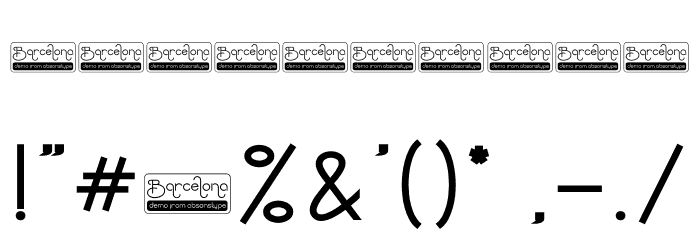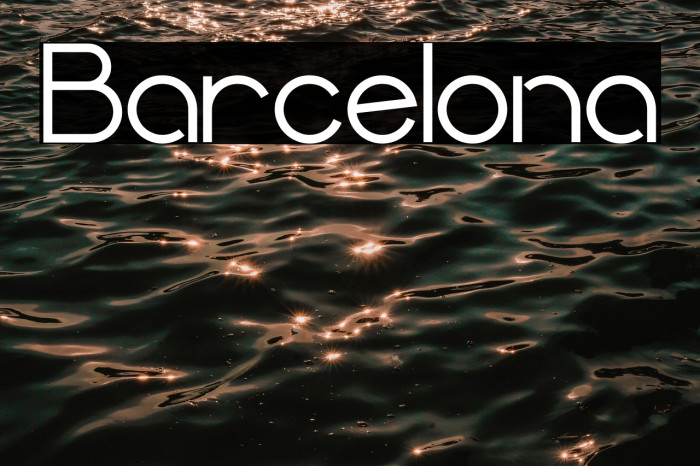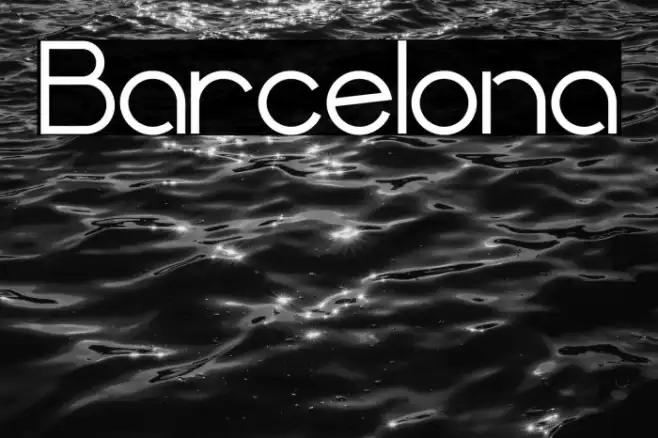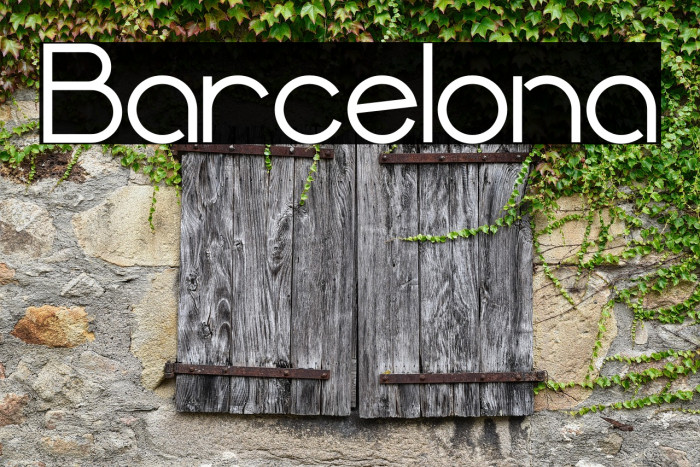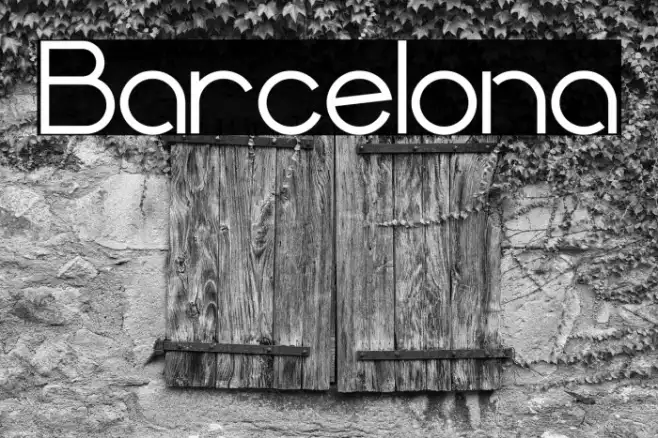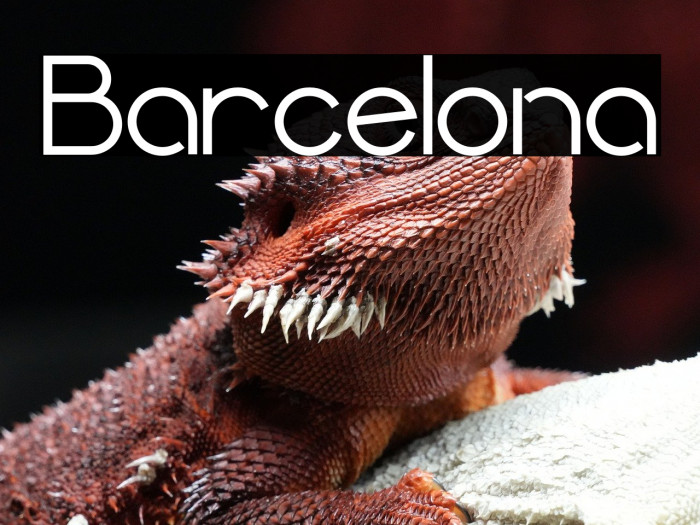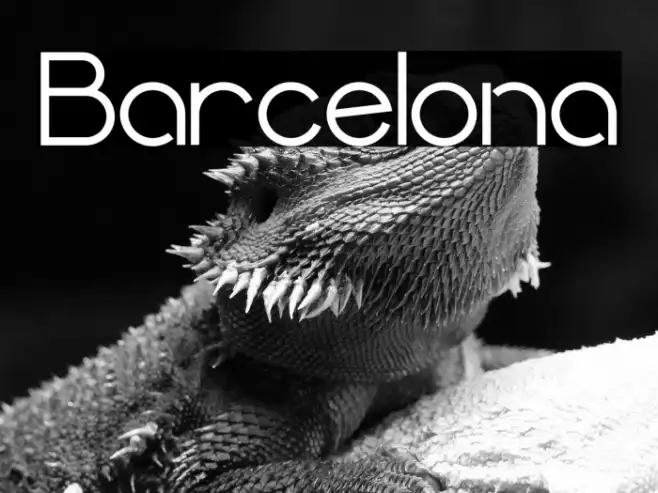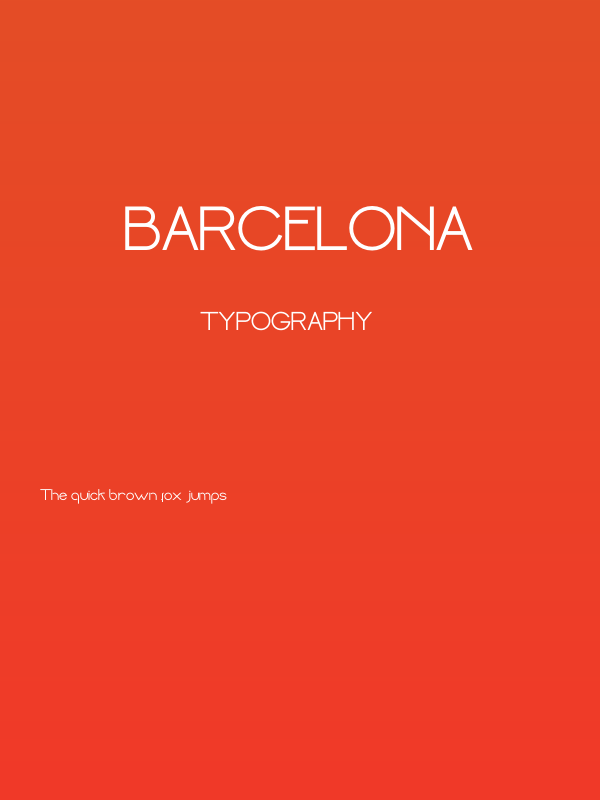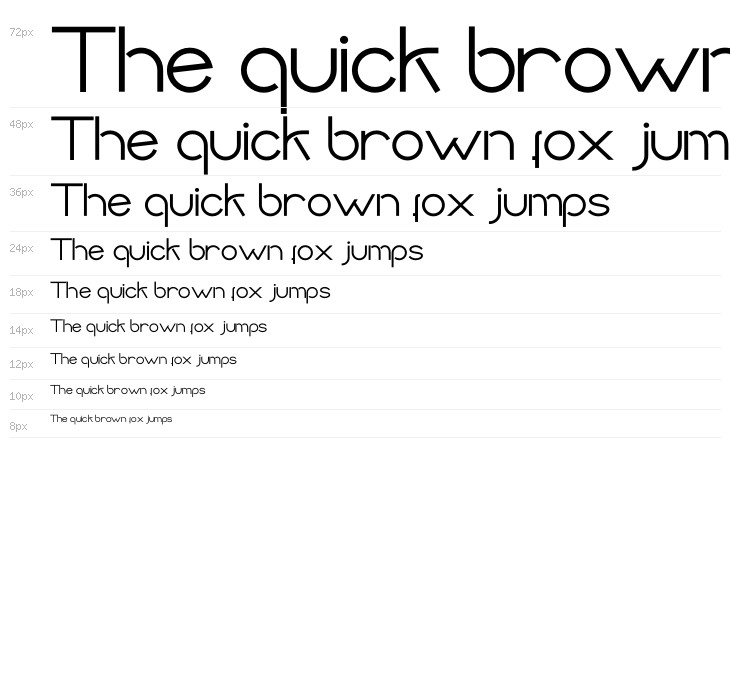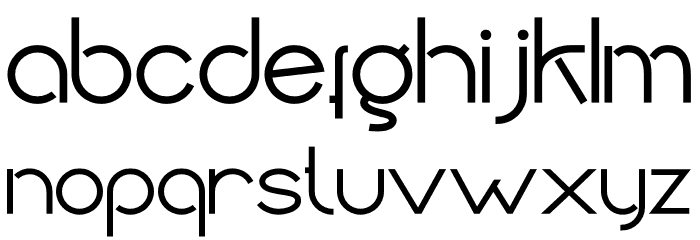
Barcelona Font
Barcelona Description
This font features a modern and sleek design with clean lines and geometric shapes. The uppercase letters are bold and structured, while the lowercase letters maintain a consistent flow with rounded edges. The numerals are clear and easy to read, complementing the overall aesthetic. Special characters are thoughtfully integrated, maintaining the font's cohesive style. The font's simplicity and elegance make it versatile for various design applications.